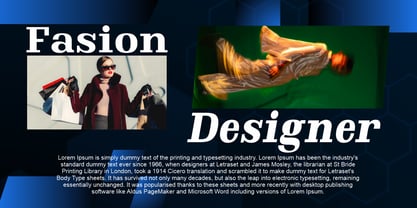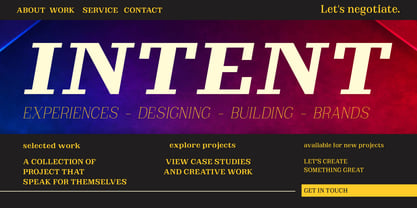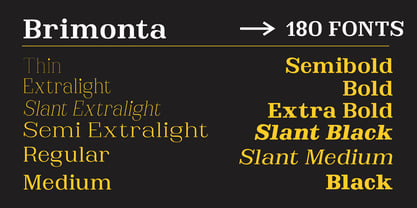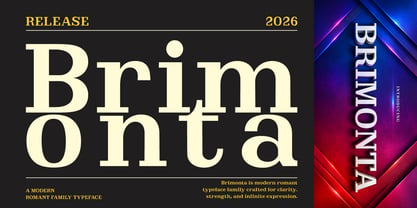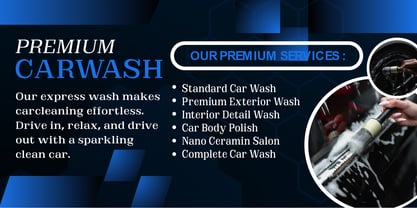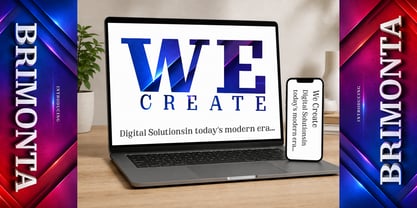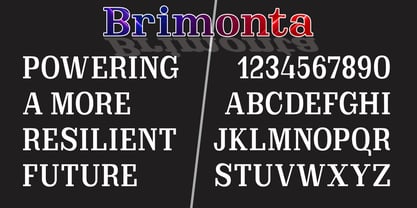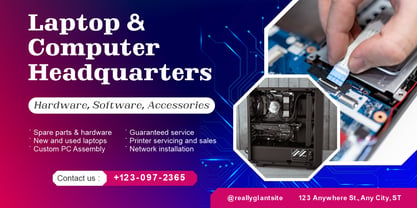
Brimonta
La familia tipográfica Brimonta fue diseñada por Yusliana M Isa y publicada por Gian Studio. Brimonta contiene 180 estilos y opciones de paquete familiar. Más información sobre esta familia
Brimonta is a modern serif superfamily font, engineered for expressive typography and high-performance branding. Featuring 10 weights from Thin to Extra Black, 5 widths from Condensed to Expanded, a dedicated Soft Collection, true Italics, Variable Font technology, Featured Alternates and Ligatures, plus extensive Multilingual Support, Brimonta delivers exceptional flexibility for editorial design, branding, packaging, digital interfaces, and impactful display typography. branding, magazines, logos, headings and more.